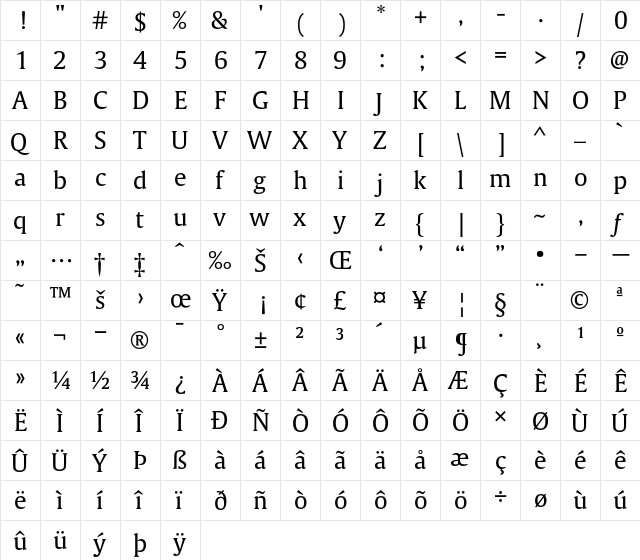
Gulliver Regular
Design Context for Gulliver Typeface
Gulliver offers clean, dependable letterforms without strong stylistic allegiance, making it a practical choice for designers who need flexibility.
Pro Tip: Pair Gulliver with a font of contrasting weight or personality to build a more expressive typographic hierarchy.